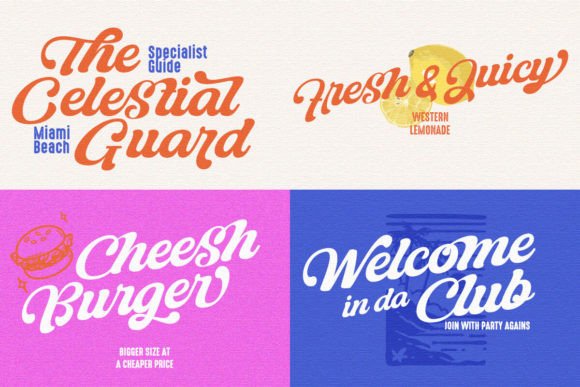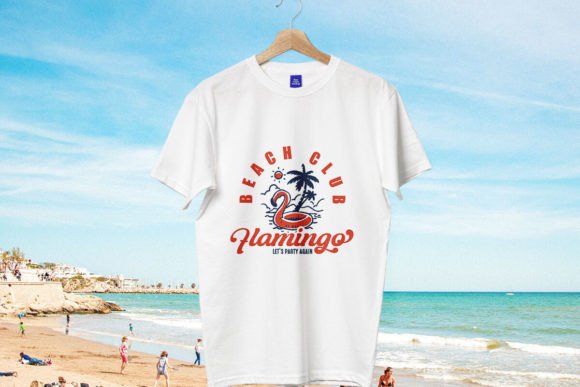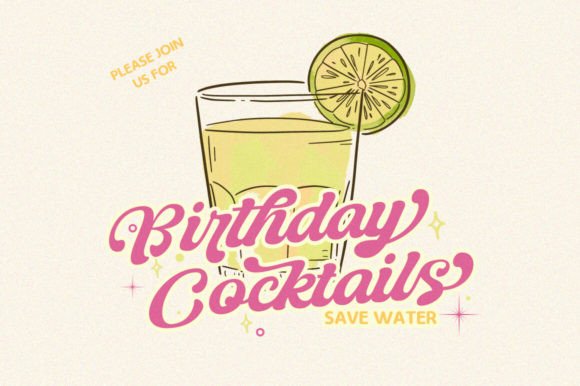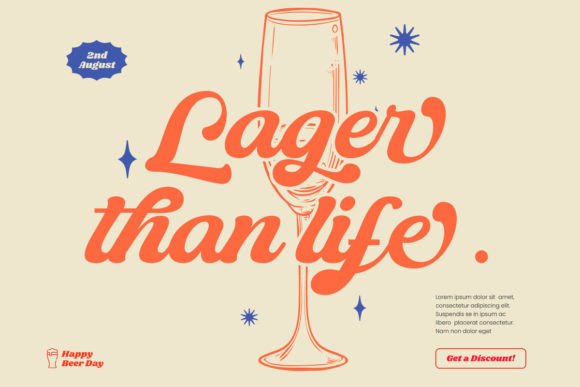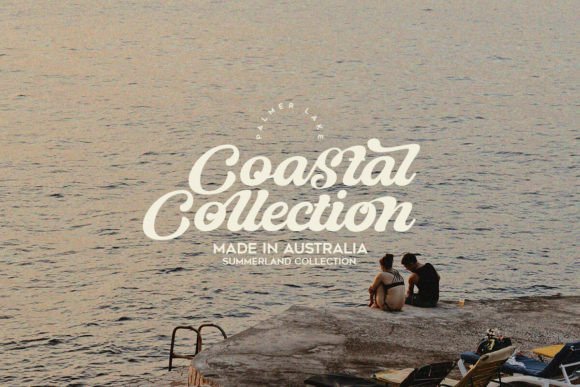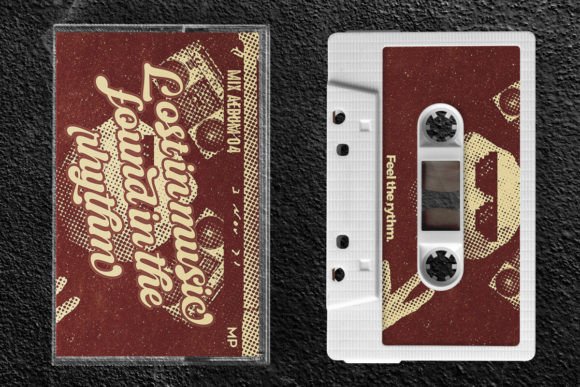
Introduction to Siderland Typeface Font
Have you ever been in the middle of a creative project, staring at a blank page, and suddenly a spark of inspiration hits? It’s that moment when everything falls into place, and your vision starts to take shape. For designers, this moment is priceless, and the right font can make all the difference. Introducing the Siderland Typeface Font, a carefully crafted script typeface that’s about to become your new best friend.
With its flowing characters and balanced personality, the Siderland Typeface Font is perfect for creating engaging messages that stand out from the crowd. Whether you’re designing a logo, badge, or emblem, or need a font for packaging, title, poster, or even a wedding invitation, this versatile font has got you covered. And the best part? It’s available for free download, making it an invaluable design resource for any creative project.
What sets the Siderland Typeface Font apart is its high-quality design, which ensures that your project looks professional and polished, even on a transparent background. So why settle for an ordinary font when you can have an extraordinary one? Get ready to elevate your design game with the Siderland Typeface Font.
Key Features of Siderland Typeface Font
- High-quality design resource ideal for creative projects, offering a unique and stylish aesthetic.
- Includes a comprehensive set of glyphs, including uppercase and lowercase letters, numerals, and special characters, to support a wide range of languages.
- Designed to be highly legible, with clear and distinct letterforms that work well in both digital and print applications.
- Supports a wide range of font sizes and resolutions, making it suitable for use in various creative projects, from small-scale designs to large-scale applications.
- Available in a range of weights and styles, allowing designers to experiment with different looks and feels to suit their creative vision.
Honest Review: Siderland Typeface Font
As a designer, I’m always on the lookout for high-quality design resources to elevate my creative projects. Recently, I had the chance to try out the Siderland Typeface Font, and I must say, it’s been a game-changer.
- High-quality font with a unique, modern design aesthetic.
- Transparent background, making it perfect for use on any background.
- Easy to customize and use in a variety of design applications.
The Siderland Typeface Font is perfect for designers who want to add a touch of sophistication and elegance to their projects. I’ve used it in several designs, and it’s always a crowd-pleaser.
- No bold or italic font styles available.
Overall, I’m thoroughly impressed with the Siderland Typeface Font. It’s a free download, making it an excellent addition to any designer’s arsenal. With its high-quality design and versatility, I highly recommend it for any creative project.
Tips for Getting the Most Out of Siderland Typeface Font
For optimal results, use the Siderland Typeface Font with a transparent background to create a clean and minimalist design. Experiment with different font sizes and styles to add visual interest to your creative project.
The Siderland Typeface Font is ideal for use in logos, branding materials, and other design elements where a high-quality, creative font is required. Its versatility makes it suitable for a wide range of design projects, from business cards to websites and social media graphics.